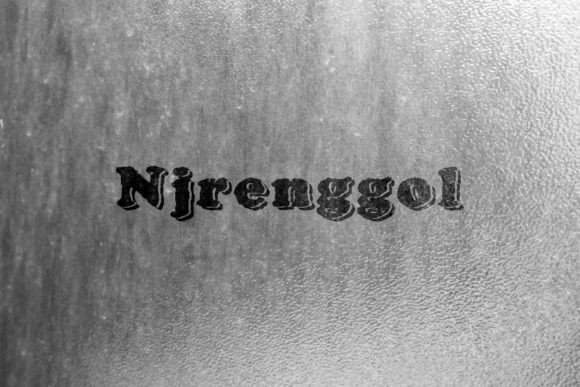
Behold the Njrenggol Font, a serif masterpiece that exudes elegance and authority. Nickhard, the font's creator, has crafted a visual spectacle that commands attention and leaves a lasting impression. With its bold strokes, Njrenggol makes a statement on any web page heading, demanding attention and creating an unforgettable impact.
Unleash the power of Njrenggol and witness the transformation of your digital creations. This font is not just a collection of letters; it's an artistic expression that elevates your designs to new heights. Let Njrenggol be your creative ally, guiding you towards a world of sophistication and strength.
The sweeping curves and distinctive letterforms of Njrenggol are a testament to Nickhard's artistry. Each character is a work of art, meticulously crafted to convey a sense of grandeur and purpose. Whether you're designing a website, creating a logo, or crafting a social media post, Njrenggol is the perfect choice for adding a touch of sophistication and strength.
But Njrenggol is more than just a beautiful font; it's also incredibly versatile. With its PUA encoding, you can effortlessly access all glyphs and swashes, making it easy to create stunning designs that stand out from the crowd. Whether you're a seasoned designer or just starting out, Njrenggol is the perfect font to help you unleash your creativity and make a lasting impact.
Don't settle for ordinary fonts that blend into the background. Embrace the power of Njrenggol and watch your designs come to life. Experience the thrill of creating something truly unique and memorable. Let Njrenggol be your guide as you embark on a journey of visual excellence.